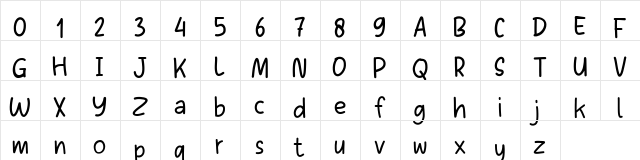
Sans Andreas Regular
Design Context for Sans Andreas Typeface
Sans Andreas is a composed and adaptable typeface that performs quietly and consistently across a wide range of design contexts.
Pro Tip: Pair Sans Andreas with a font of contrasting weight or personality to build a more expressive typographic hierarchy.